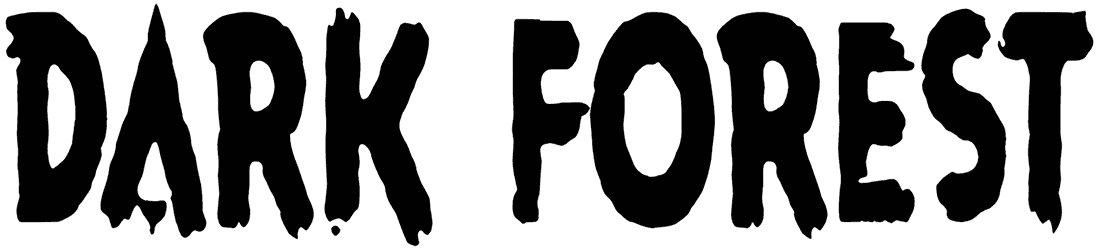
Dark Forest Font
As a Halloween font, Dark Forest works wonderfully for Halloween-related designs. Despite its lack of lowercase letters, this font is perfect for adding a sense of mystery and intrigue to any design project because of its spooky, eerie vibe.
Dark Forest.